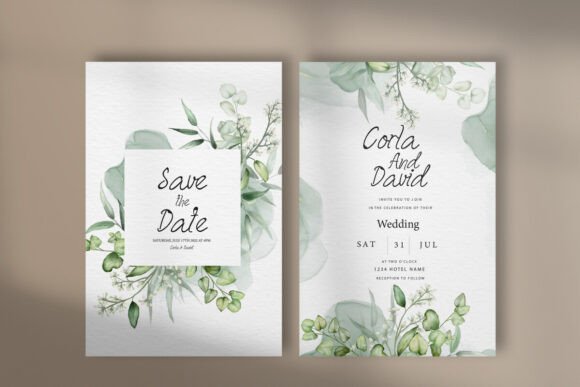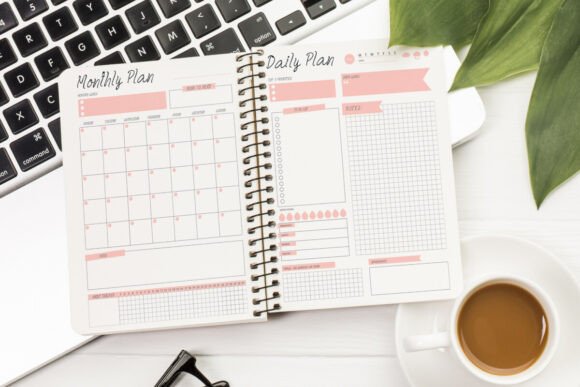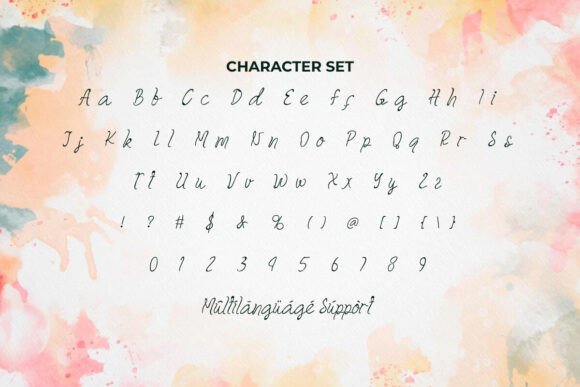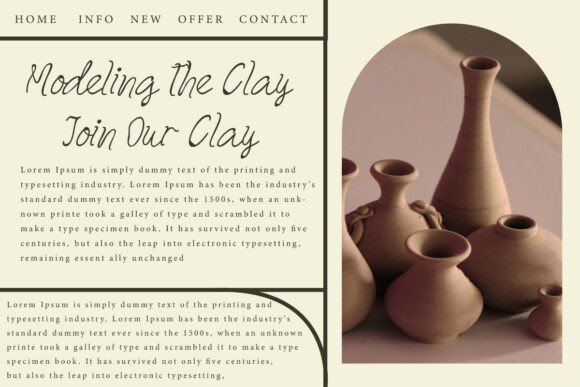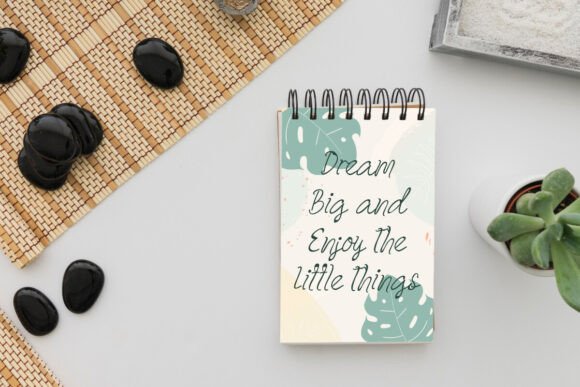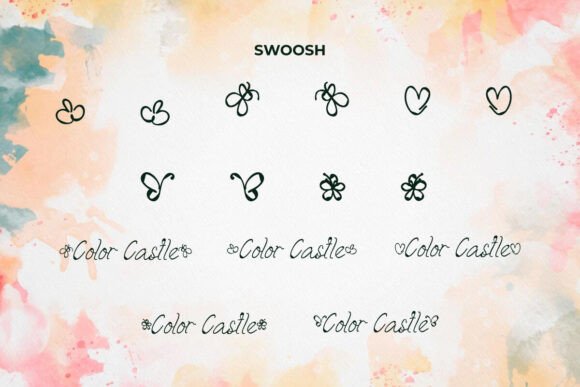
Introduction to Color Castle Font
Color Castle is a unique script display font designed by NoahType.
This font has a charm that is different from other types of fonts This is suitable for those of you who like cursive fonts with a touch of decoration on each character.